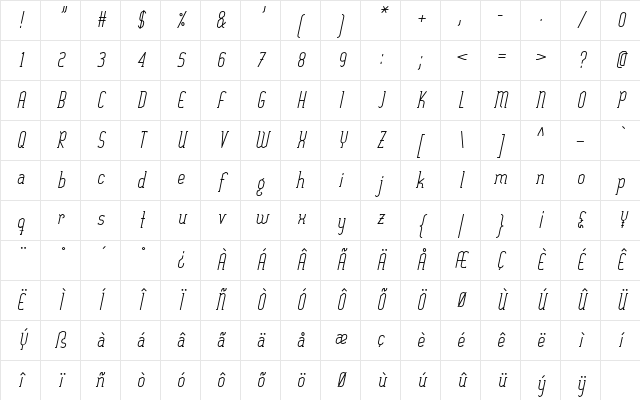
Complete Sexything Regular Italic glyph index. Displaying only characters natively supported by Sexything Regular Italic font.
Sexything is a composed and adaptable typeface that performs quietly and consistently across a wide range of design contexts. The slanted form adds forward momentum and visual energy. Its slender proportions lend an understated elegance to any composition.
Pro Tip: Use Sexything for emphasis, pull quotes, and subheadings where its slanted energy can add rhythm to the layout.